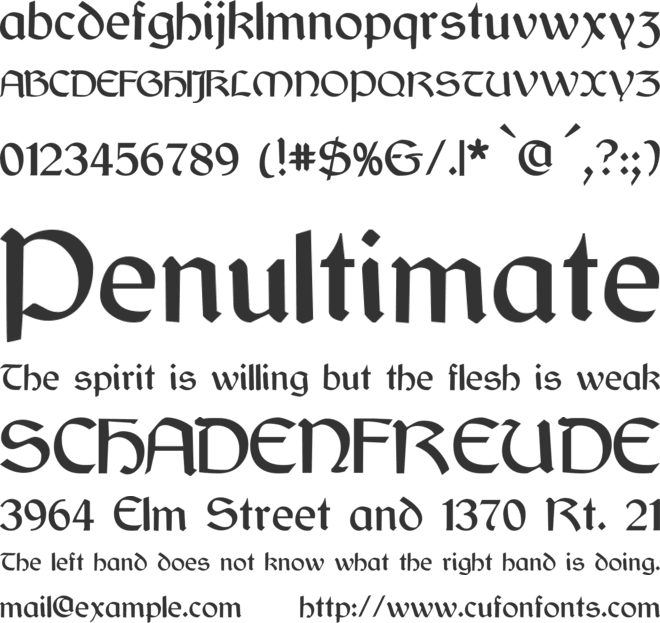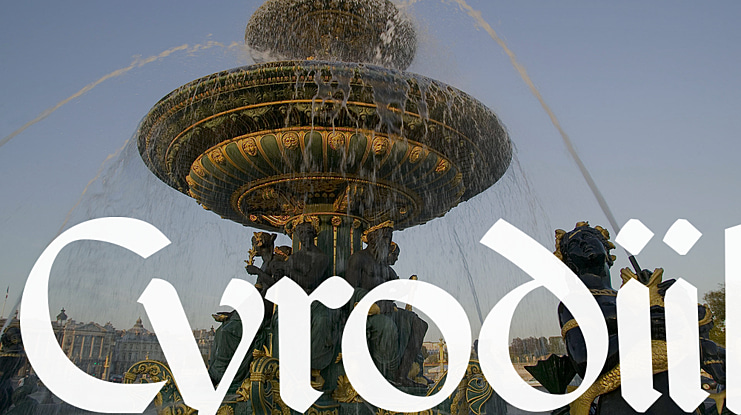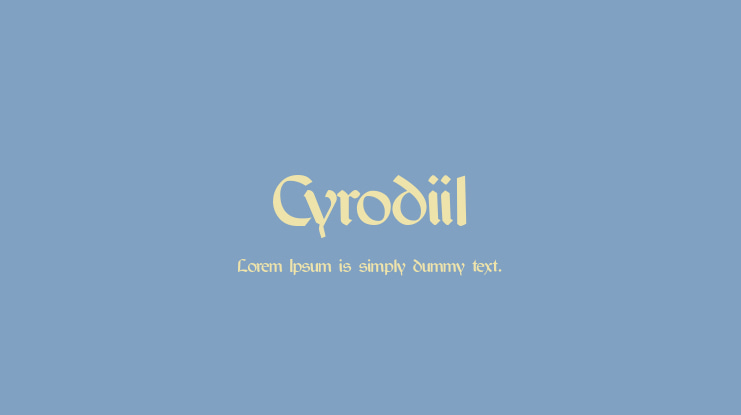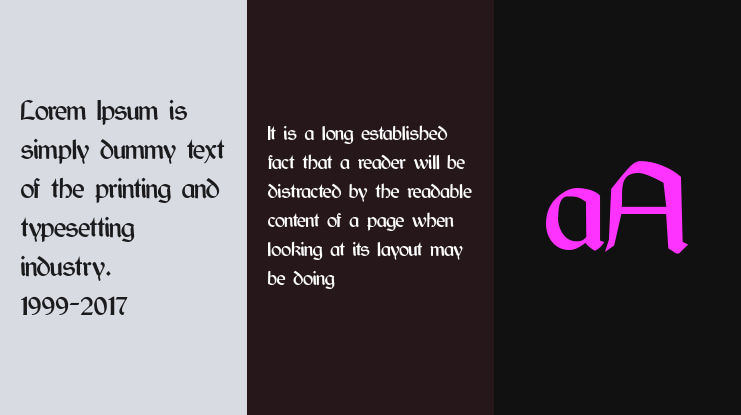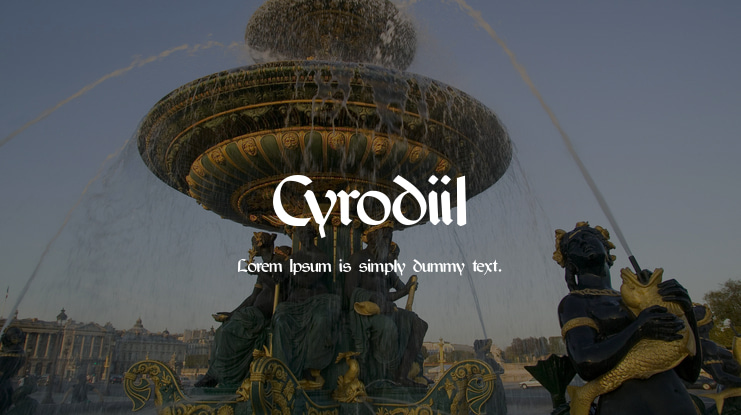
Cyrodiil Font Family
Neale Davidson
Cyrodiil is a based on the main text used within Bethesda Softwortk’s later Elder Scrolls games and has a strong, later-medieval / Gaelic look, perfect for fantasy-gaming text. Includes full alphabet, extended punctuation, euro. Includes regular bold, italic, and bold-italic faces.